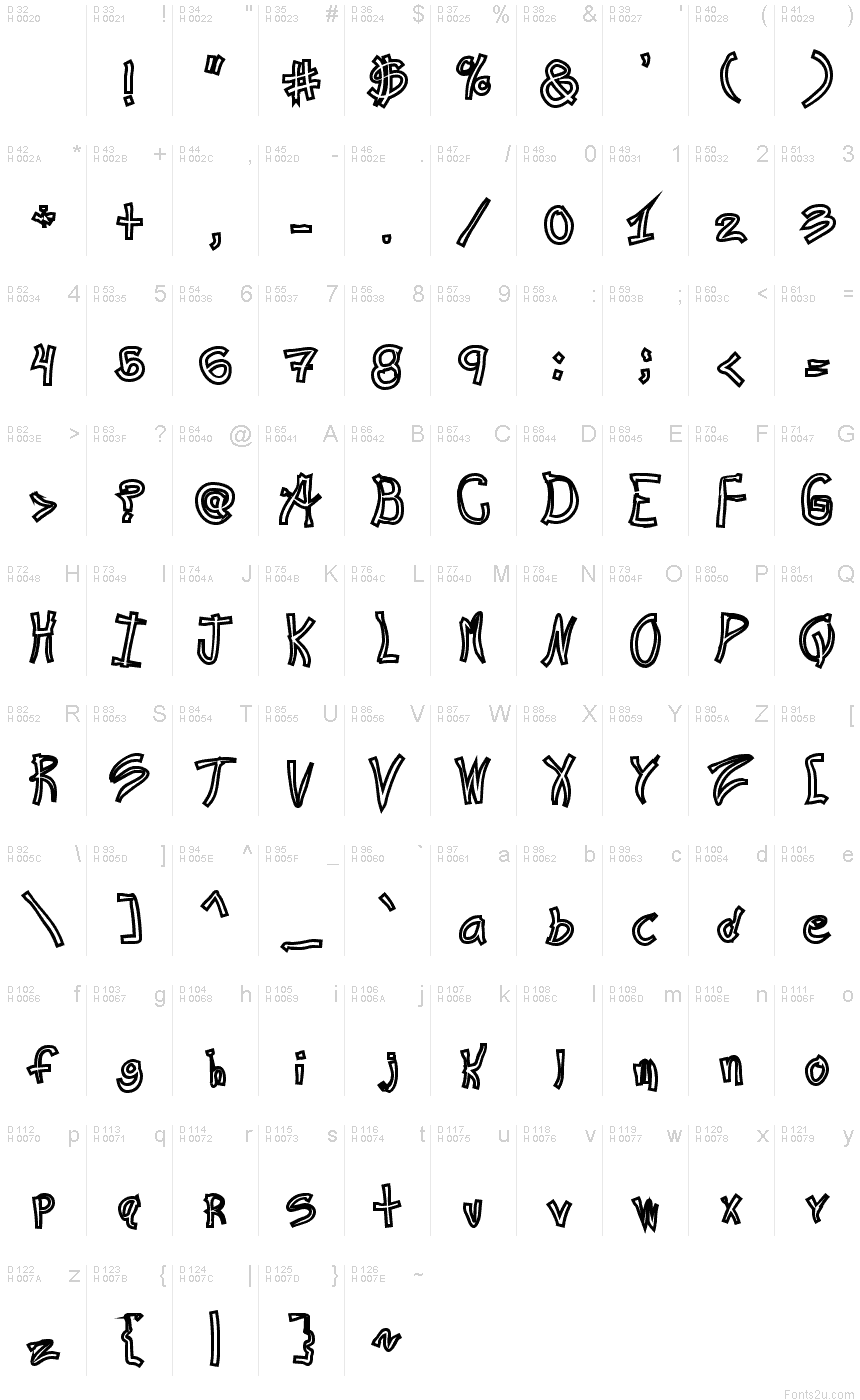
Ra's Hand Hollow
Ra's Hand Hollow, by Omega Font Labs, is a free hand-drawn hollow display font with a loose comic-graffiti feel. The letters wobble and lean with uneven outlines, sharp little kinks, and a casual marker-made rhythm that keeps the whole alphabet lively rather than neat.
It fits posters, zine covers, flyer headings, kids' event graphics, and playful logo sketches where a free font should feel homemade instead of polished. Because the outline stays open and the shapes are so animated, it also works well for short title cards, splashy packaging names, or big initials that need movement without turning heavy.